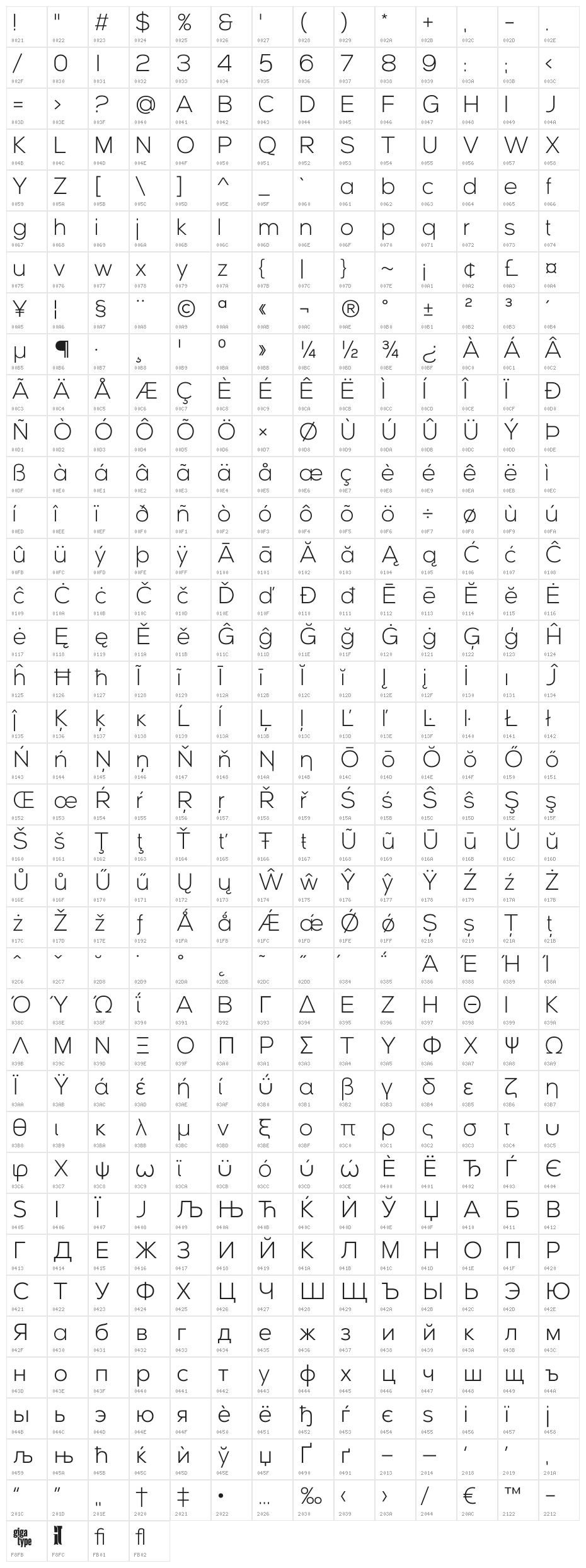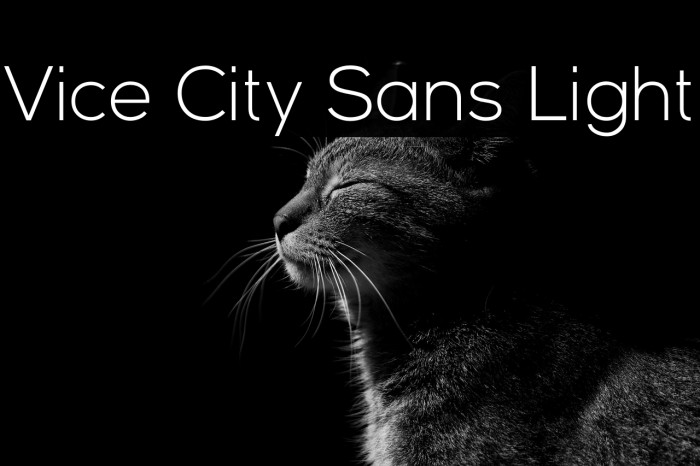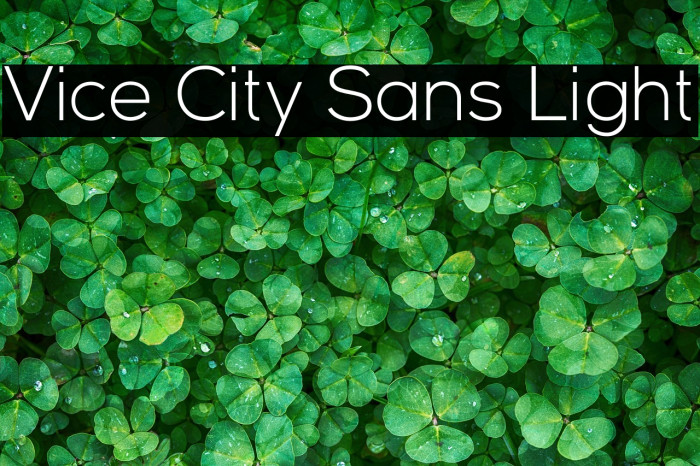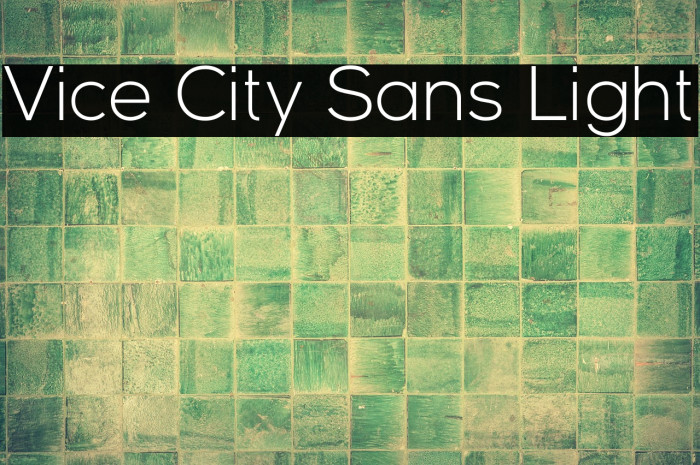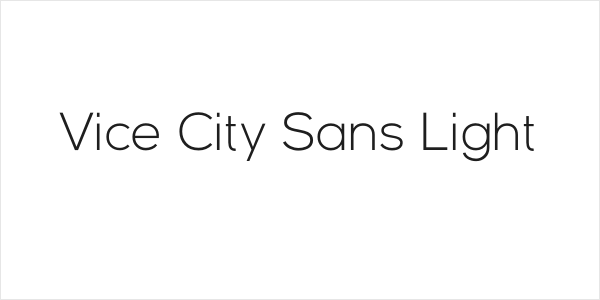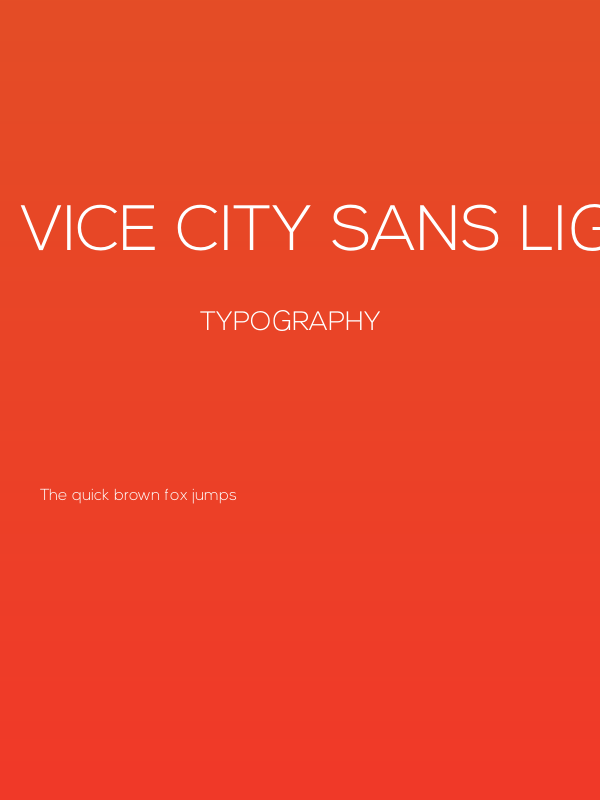
Vice City Sans Light Font
Vice City Sans Light Description
A clean and modern sans-serif font with a light weight, featuring uniform stroke widths and minimal contrast. The characters are evenly spaced, providing a clear and legible appearance.
| Proposed Projects | Suitable for digital interfaces, branding, and minimalist designs. |